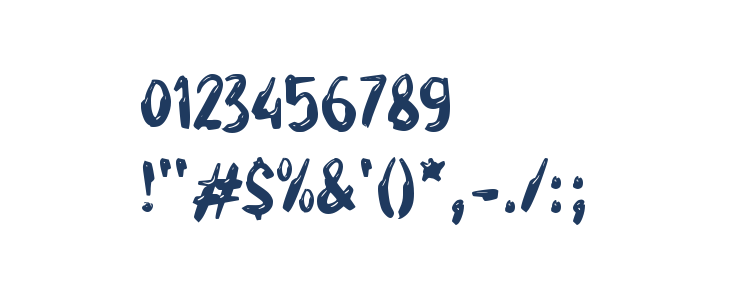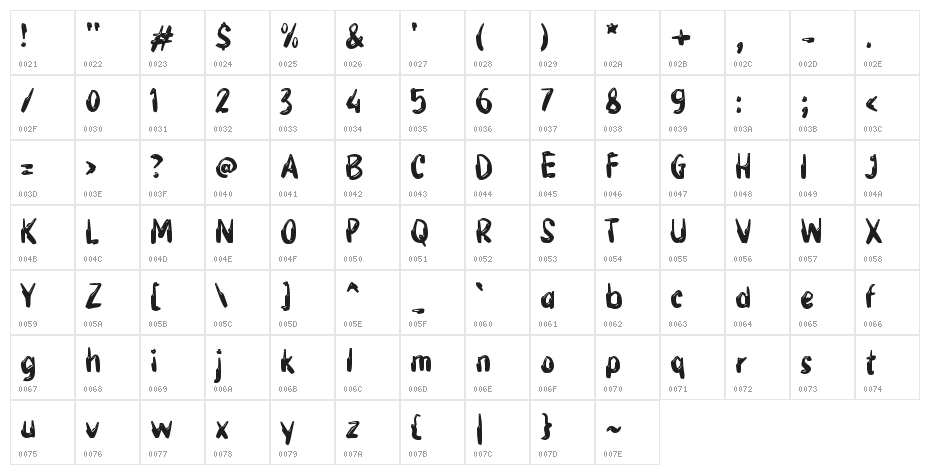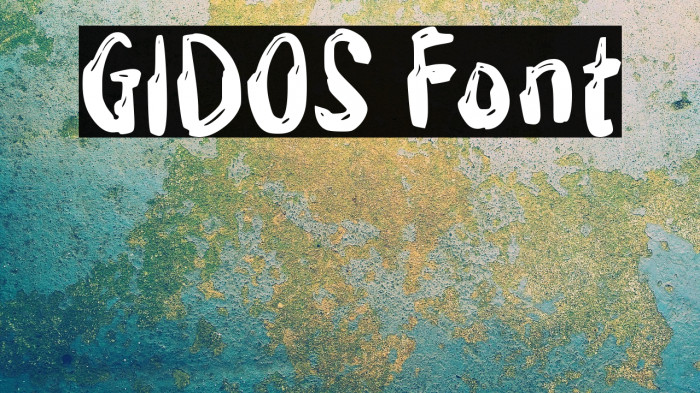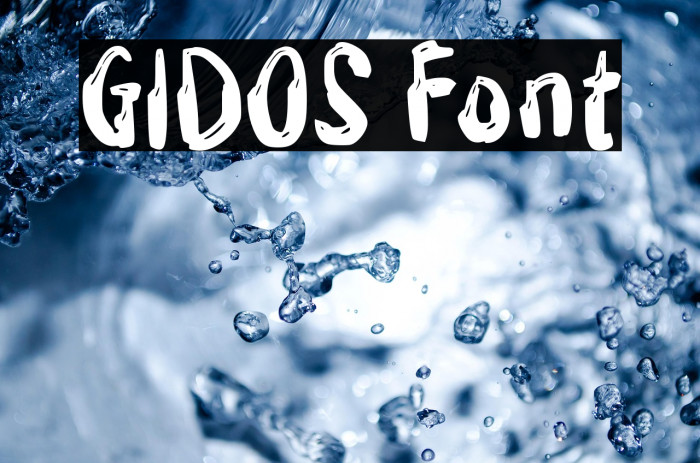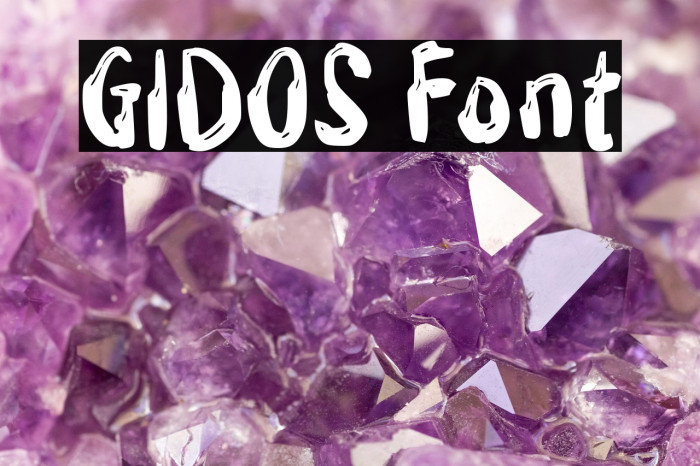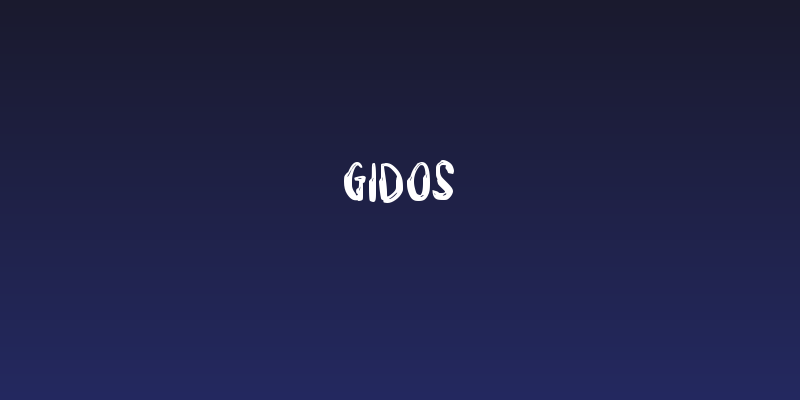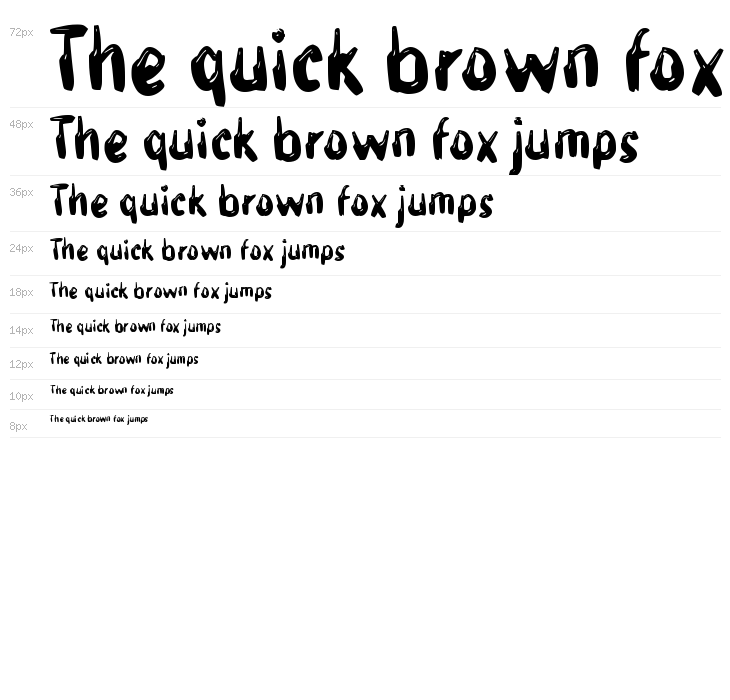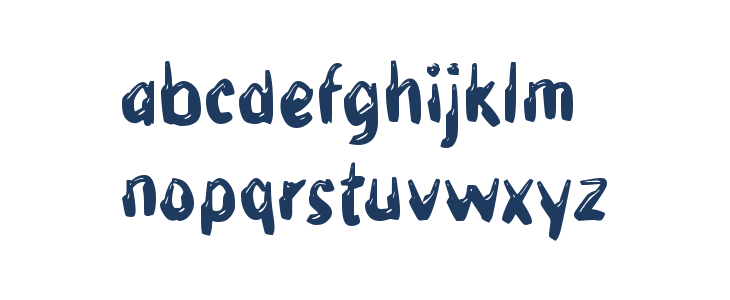
GIDOS Font
GIDOS Description
This font features a bold, expressive style with a hand-painted appearance. The letters are characterized by their thick strokes and uneven edges, giving a dynamic and energetic feel. The uppercase and lowercase letters maintain a consistent style, with a playful and artistic flair. Numbers and special characters follow the same bold and irregular design, enhancing the font's overall cohesive look. The font's unique style makes it stand out, suitable for creative and eye-catching designs.